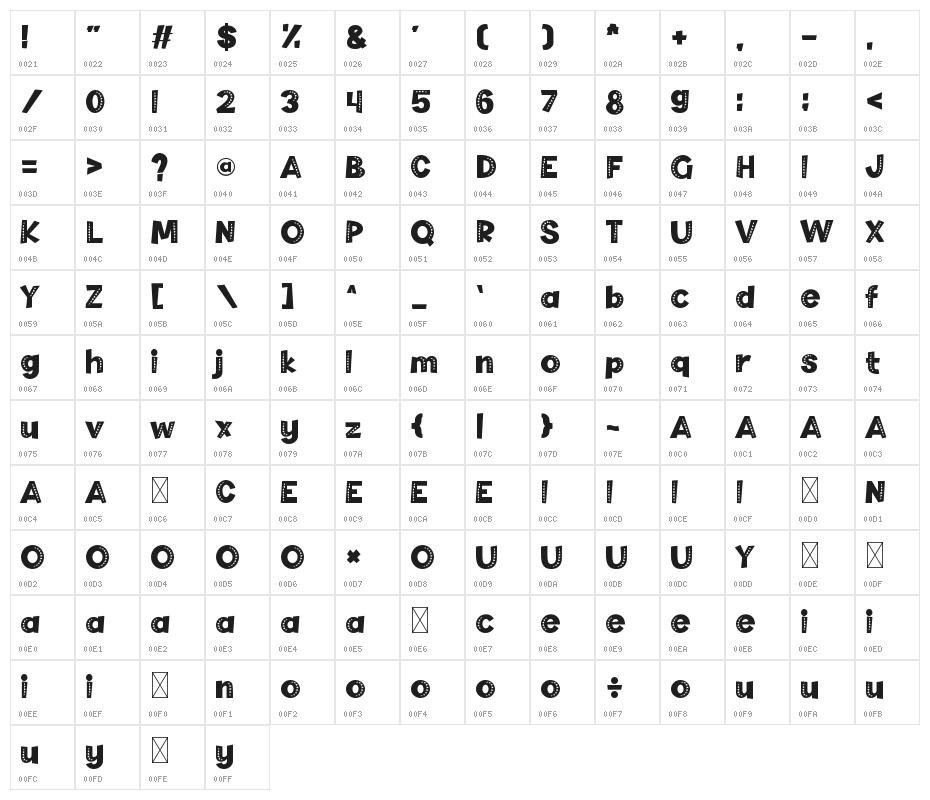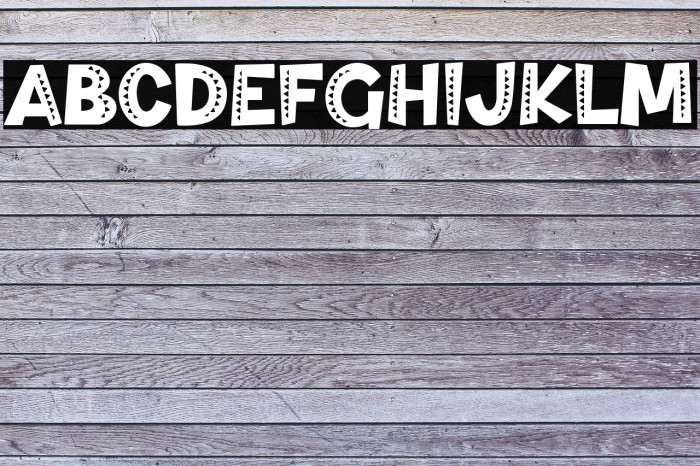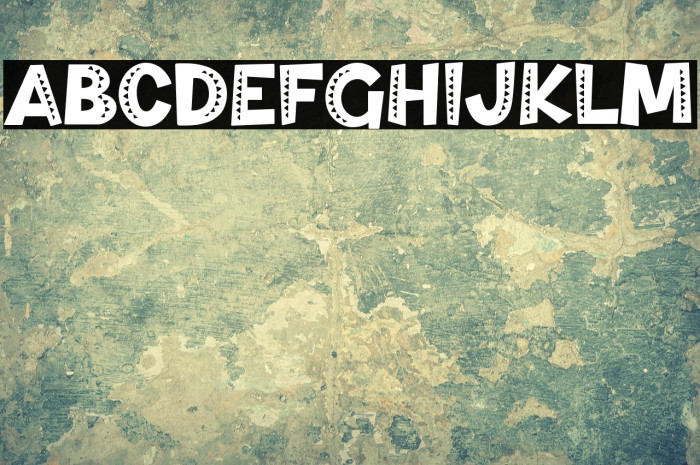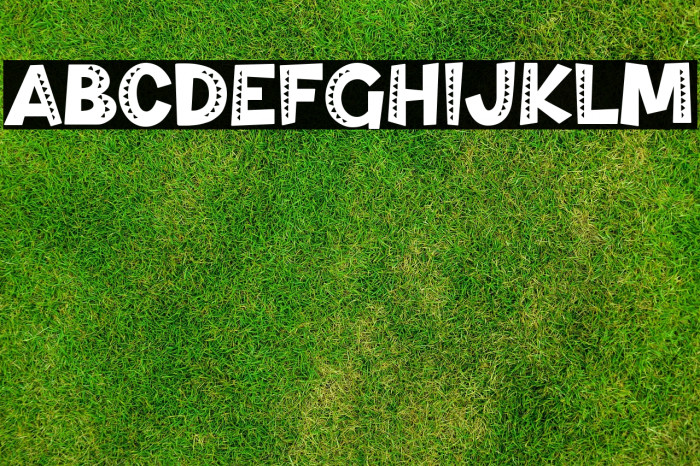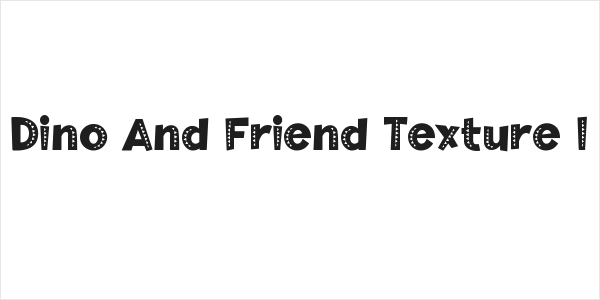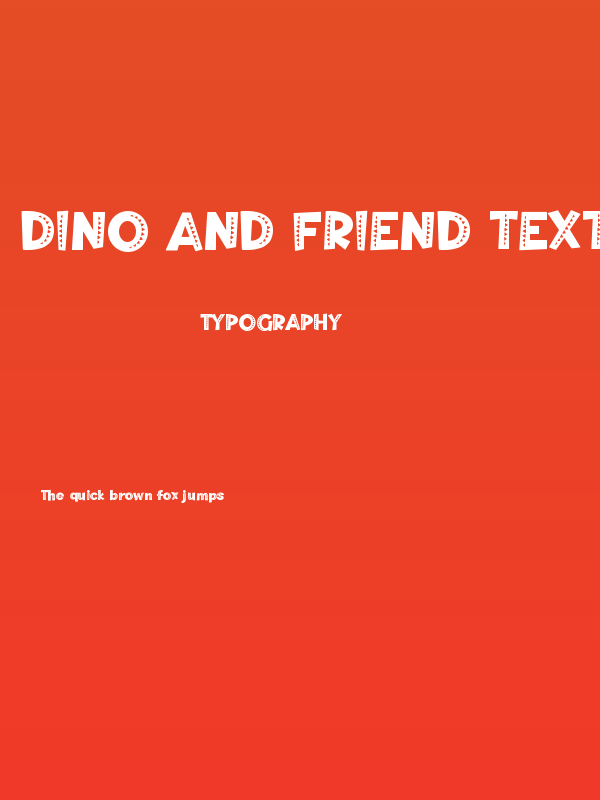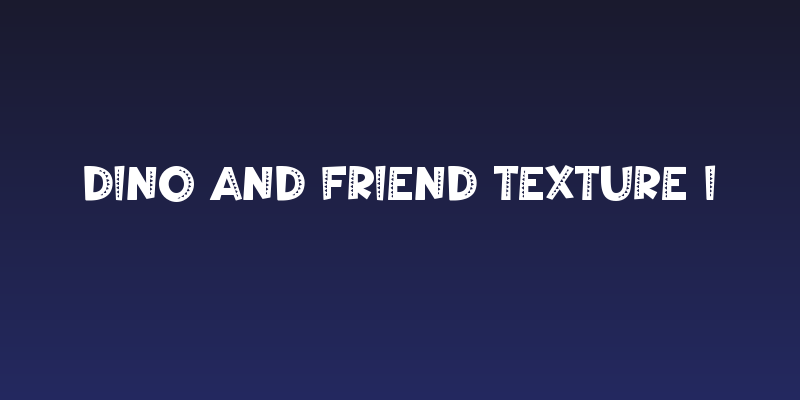
Dino And Friend Texture 1 Font
Dino And Friend Texture 1 Description
This playful and bold font features a unique decorative style with a textured pattern inside each character, reminiscent of dinosaur scales or playful doodles. The uppercase and lowercase letters are designed with a chunky, whimsical flair, making them stand out with their bold presence. Numbers and special characters follow the same design ethos, ensuring consistency across all glyphs. The font's overall appearance is fun and engaging, perfect for projects that require a lively and youthful touch.
| Proposed Projects | Ideal for children's books, playful branding, party invitations, and educational materials. |